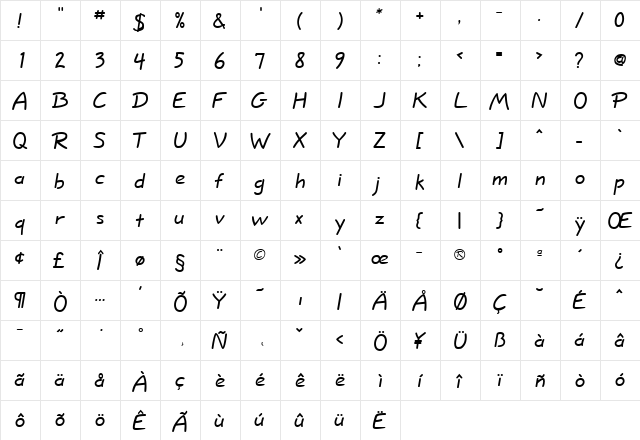
JottFLF-Bold.98 98
Design Context for JottFLF-Bold.98 Typeface
JottFLF-Bold.98 is a composed and adaptable typeface that performs quietly and consistently across a wide range of design contexts. The heavy weight commands attention and anchors typographic hierarchies.